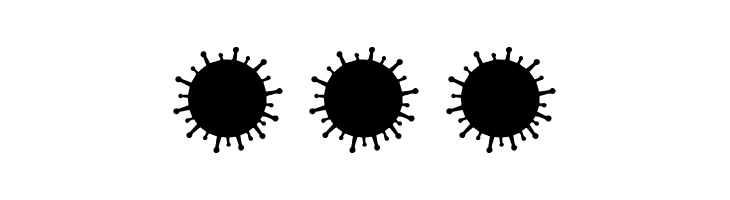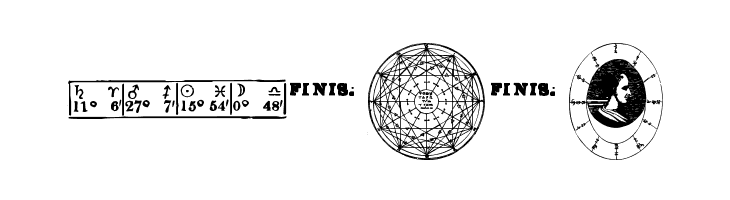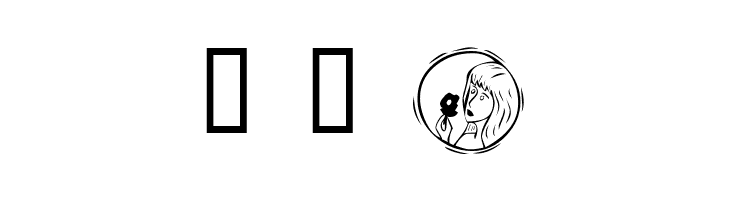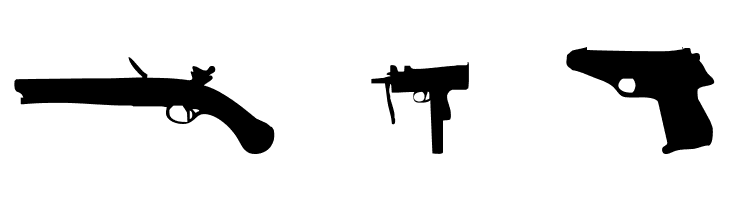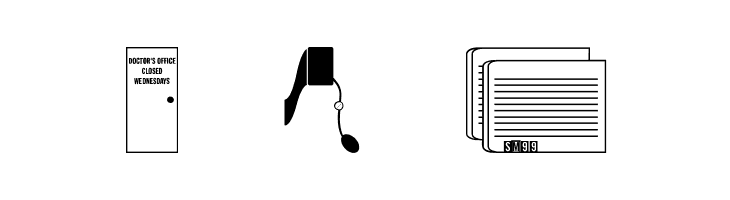
Abstract, crop circle-inspired dingbat font with bold geometric symbols.
A decorative font featuring zodiac symbols in circular designs.
A bold, thematic font with characters represented by firearm silhouettes.
A playful, cartoon-style icon set with medical themes.
A novelty dingbat font with detailed medical-themed icons.
A decorative, virus-themed design using circular shapes.
Decorative font with astrological and mystical illustrations.